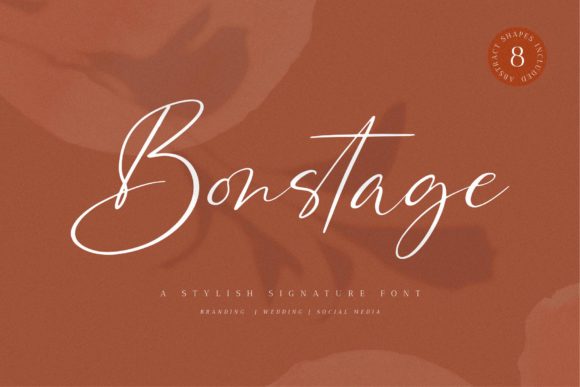
Dive into the world of elegance and artistry with Bonstage, a beautiful script font family that will inspire your designs with its extraordinary charm. Step into the realm of timeless beauty, where Bonstage reigns supreme, captivating all who behold it. Its delicate strokes and intricate details evoke a sense of classicism and sophistication, paying homage to the enduring allure of traditional typography.
With Bonstage, you'll unlock a treasure trove of creative possibilities. Its meticulously crafted glyphs dance across the page, forming words that whisper stories of love, joy, and boundless imagination. Let your designs flourish with the artistry of Bonstage, a font that transforms ordinary text into breathtaking works of art.
Beyond its aesthetic appeal, Bonstage offers a wealth of practical advantages. Its carefully balanced letterforms ensure optimal readability, making it a joy to use for a wide range of design projects. From heartfelt invitations to captivating social media posts, Bonstage effortlessly adapts to meet your creative needs.
As a script font family, Bonstage exudes a touch of playfulness and whimsy, adding a delightful personal touch to your designs. Its versatility shines through its ability to seamlessly blend with other fonts, creating harmonious visual compositions that captivate the eye.
But wait, there's more! Bonstage comes with a collection of stunning abstract shapes extras, unlocking endless opportunities for creative expression. Elevate your designs with these captivating elements, adding depth and intrigue to your projects. Let your imagination soar as you incorporate these unique shapes into your work, creating designs that leave a lasting impression.
With Bonstage, you'll discover a font that truly embodies elegance, artistry, and boundless creativity. Its classic style infused with a modern twist makes it the perfect choice for designers seeking to create truly outstanding designs. So, embark on a typographic adventure with Bonstage and let your designs bloom with beauty and wonder.